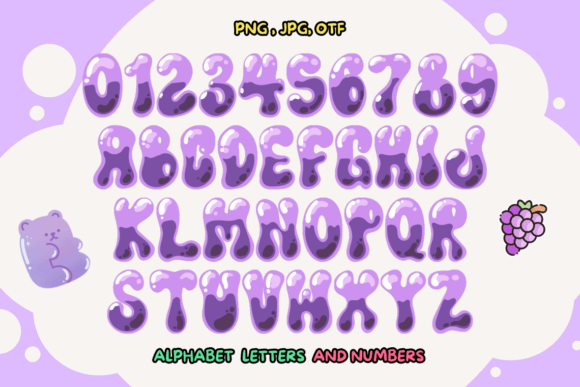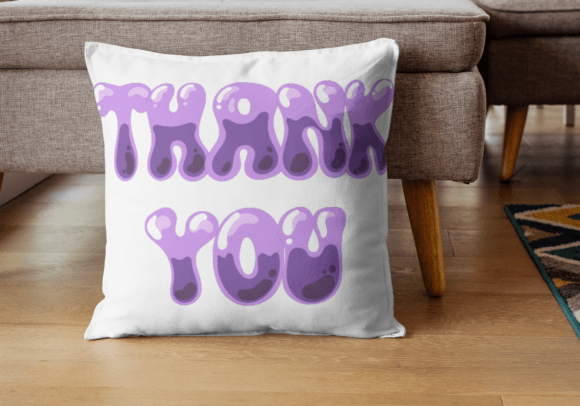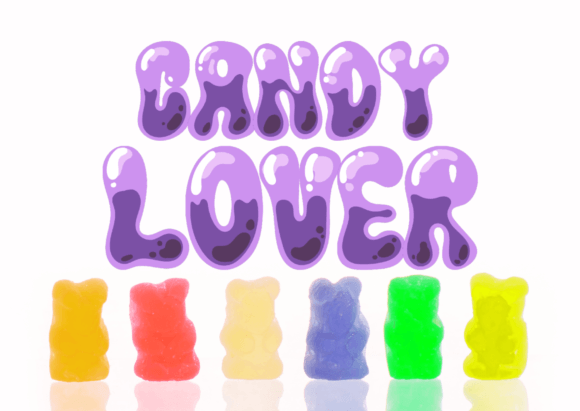
Introducing the Delightful “Bubble Grape Jelly Color” Font
Are you ready to add a burst of sweetness to your designs? Look no further than the “Bubble Grape Jelly Color” Font! This delightful handwritten typeface is infused with the juicy goodness of grape jelly, making it perfect for designers and crafters looking to add a fun and whimsical touch to their projects.
A Playful and Whimsical Typeface
The “Bubble Grape Jelly Color” Font features playful bubble-like letters that are sure to bring a smile to your face. Its rich purple hue is reminiscent of a juicy bunch of grapes, and its handwritten style gives it a friendly and approachable feel. Whether you’re designing vibrant posters, eye-catching packaging, or playful stickers, this font is sure to add a touch of personality to your creations.
What Makes “Bubble Grape Jelly Color” Font So Special?
So, what sets “Bubble Grape Jelly Color” Font apart from other typefaces? Here are just a few things that make it so special:
- Playful design: The bubble-like letters in this font are sure to add a playful touch to any project.
- Rich purple hue: The rich purple color of this font is perfect for designs that need a pop of color.
- Handwritten style: The handwritten style of this font gives it a friendly and approachable feel.
- Color font (Opentype-SVG): This font is a color font, which means it can be used in programs like PhotoShop and Illustrator.
How to Use “Bubble Grape Jelly Color” Font
“Bubble Grape Jelly Color” Font is a versatile typeface that can be used in a variety of projects, including:
- Posters and flyers: Add a burst of sweetness to your posters and flyers with this fun and playful font.
- Packaging design: Use this font to add a touch of personality to your packaging designs.
- Stickers and labels: This font is perfect for designing playful stickers and labels.
- Digital graphics: Use this font to add a touch of whimsy to your digital graphics, such as social media graphics and blog posts.
In conclusion, “Bubble Grape Jelly Color” Font is a delightful handwritten typeface that’s sure to add a burst of sweetness to your designs. With its playful bubble-like letters and rich purple hue, this font is perfect for designers and crafters looking to add a fun and whimsical touch to their projects. So why wait? Dive into the deliciously colorful world of “Bubble Grape Jelly Color” Font today!